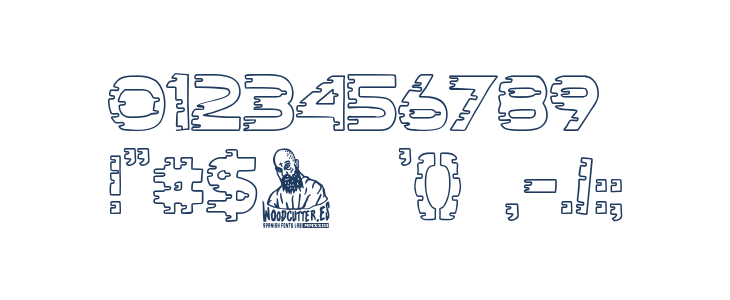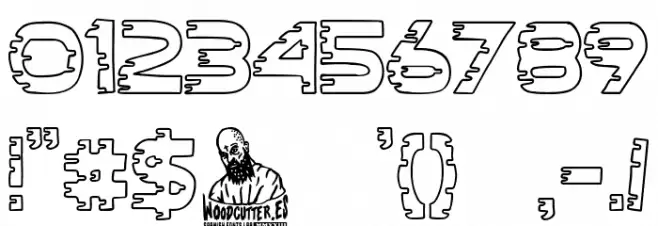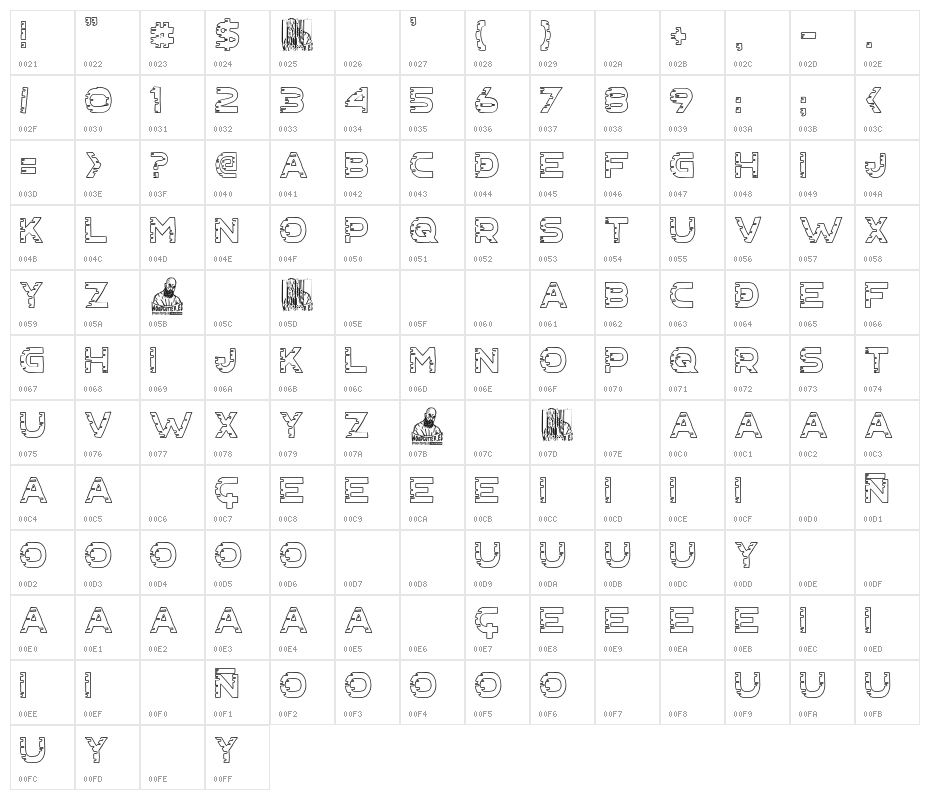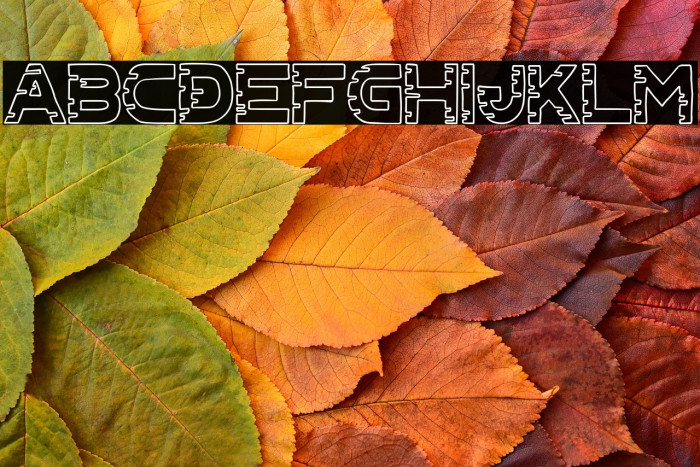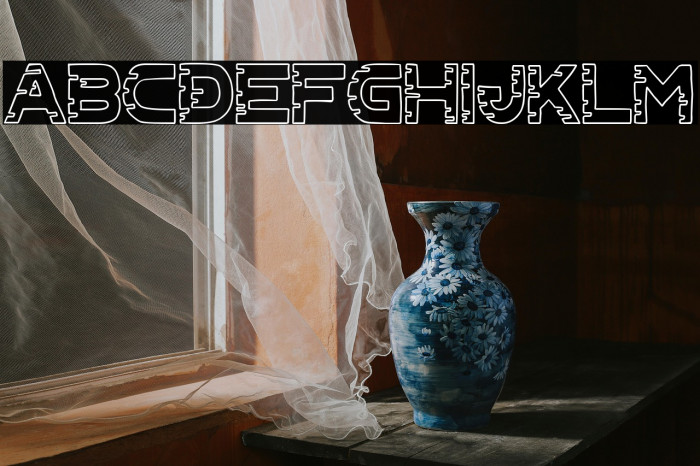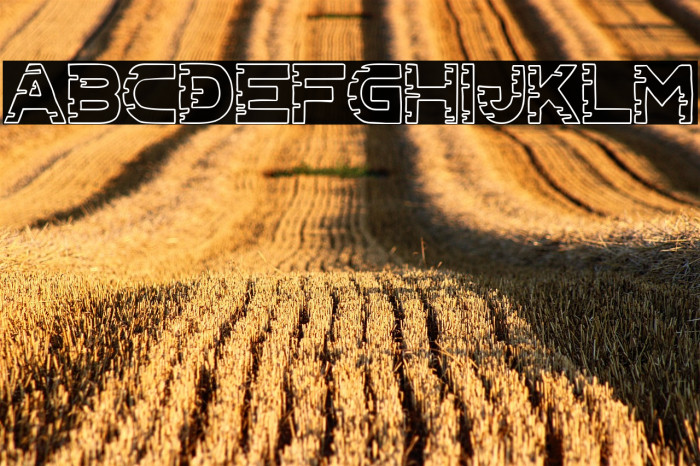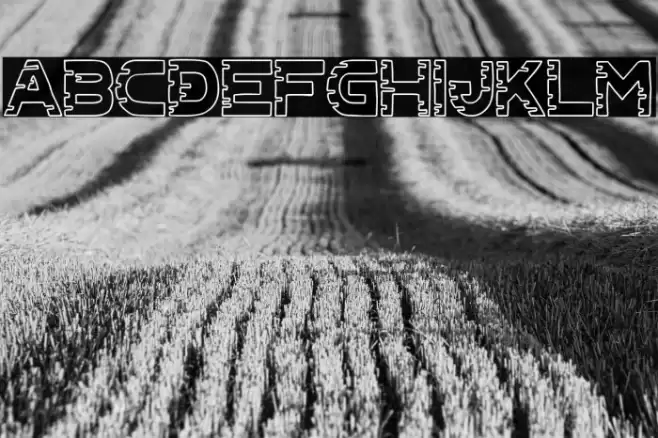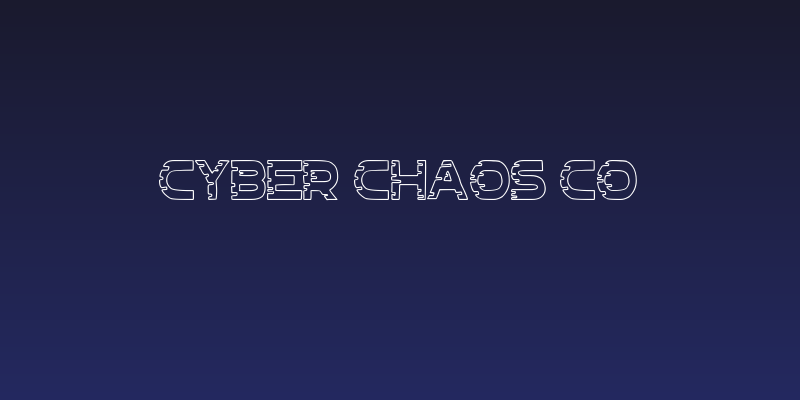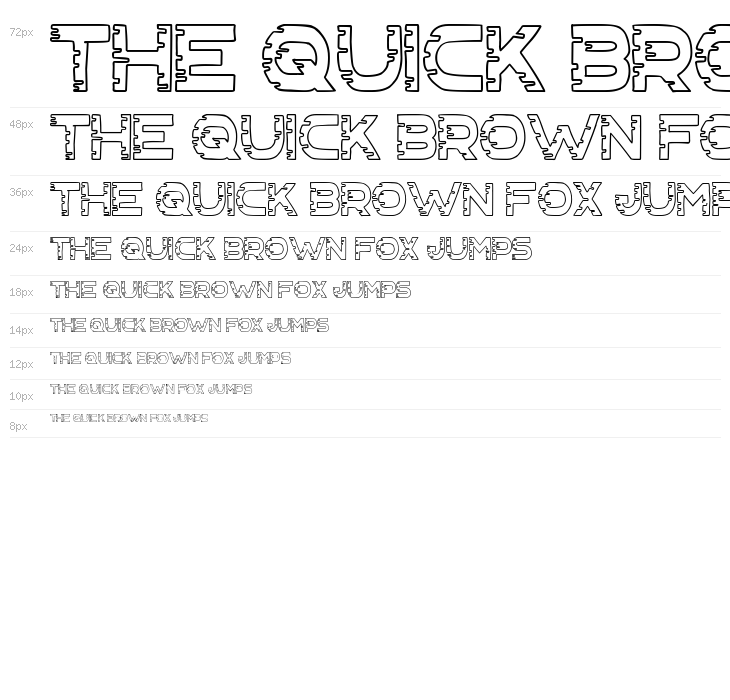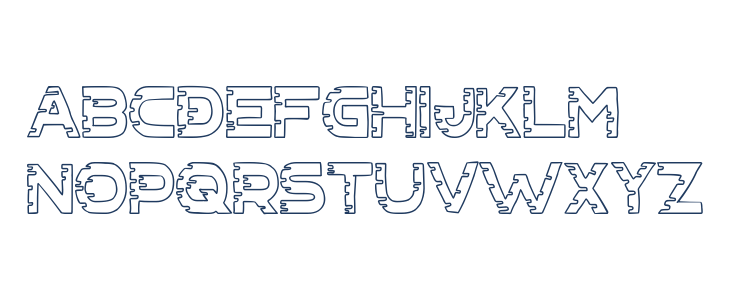
Cyber Chaos co Font
Cyber Chaos co Description
This font features a futuristic and digital aesthetic, characterized by its geometric and angular shapes. The letters are outlined with a distinct, circuit-like pattern that gives a sense of technology and innovation. The design is bold and eye-catching, making it suitable for projects that require a modern and tech-savvy appearance. The characters are evenly spaced, ensuring readability while maintaining a unique style. This font is ideal for creative projects that aim to convey a sense of digital chaos and complexity.
| Proposed Projects | Ideal for tech-related branding, digital art, sci-fi posters, and video game titles. |